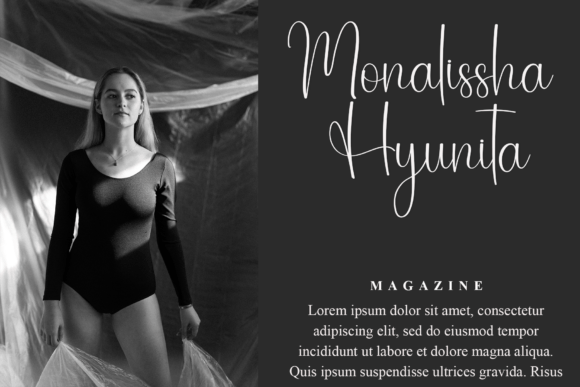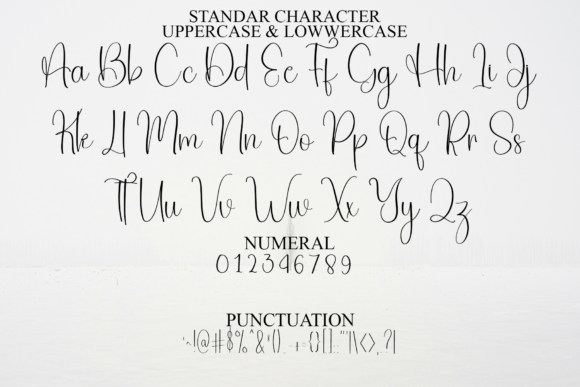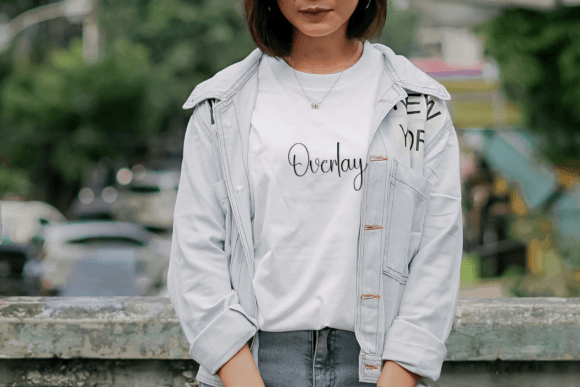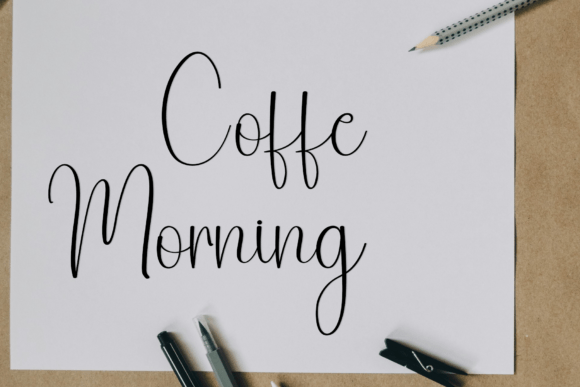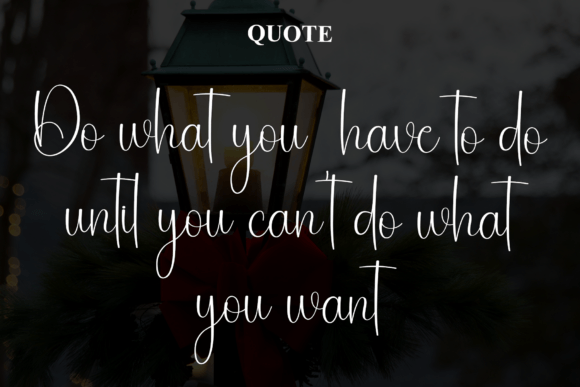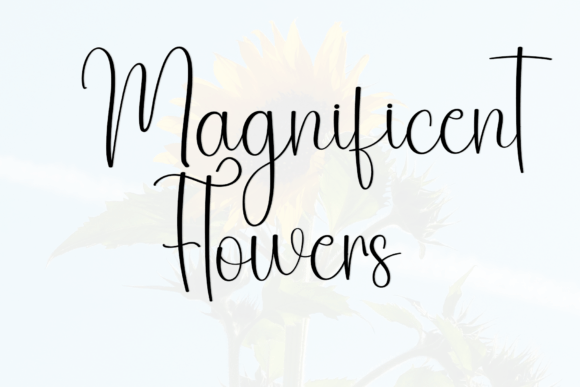
Introduction to Majestic Value Font
As a designer, there’s nothing quite like the thrill of bringing a creative project to life. You’ve poured your heart and soul into every detail, from the color palette to the typography. And then, you stumble upon the perfect font – one that elevates your design from good to breathtaking. For many, that font is the Majestic Value Font, a stunning script font that adds a touch of elegance and charm to any project.
With its smooth, flowing letters, the Majestic Value Font is the perfect addition to any design. Whether you’re creating an invitation, a logo, or a marketing campaign, this high-quality font is sure to make a lasting impression. And the best part? It’s available for free download, making it an accessible design resource for designers of all levels.
For designers, the Majestic Value Font is a valuable asset, offering a level of sophistication and style that’s hard to find elsewhere. And with its transparent background, it’s easy to integrate into any design, no matter how complex or simple.
Key Features of Majestic Value Font
- High-quality design resource suitable for various creative projects, including logos, branding materials, and digital art.
- Features a unique, elegant design with a transparent background, making it easy to integrate into any design.
- Designed to be highly legible and versatile, making it suitable for both print and digital applications.
- Comes in a range of weights, from light to bold, to provide flexibility for different design needs.
Honest Review: Majestic Value Font
I recently came across the Majestic Value Font, a free download that caught my attention due to its unique design and potential for creative projects. The font has a high quality aesthetic that would complement various design resources.
- ✨ Unique and elegant design
- ✨ Wide range of application possibilities, from logos to headings
- ✨ Supports various languages, making it a versatile design resource
- ✨ Transparent background, allowing for seamless layering
- ⚠️ Limited font weights and styles
- ⚠️ Not ideal for use in small text sizes, as it can become difficult to read
- ⚠️ Some users may find the font too ornate for certain design projects
Overall, the Majestic Value Font is a solid addition to any design library. Its high quality and unique design make it a valuable resource for creative projects. While it has some limitations, it’s definitely worth exploring for the right application.
The Majestic Value Font is ideal for use in branding materials, marketing materials, and other design projects that require a touch of sophistication and elegance.